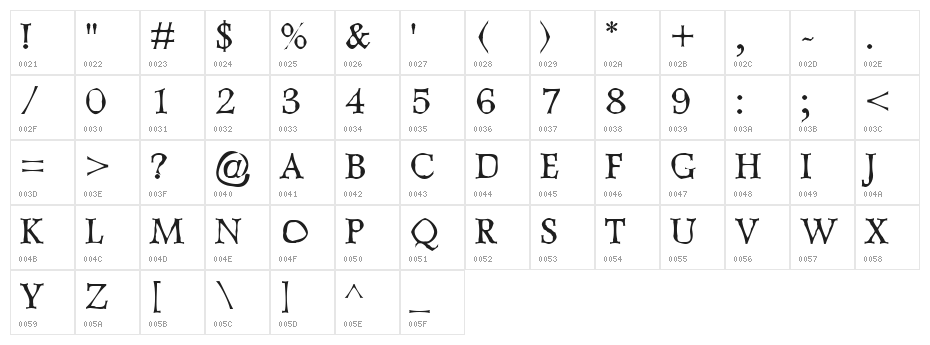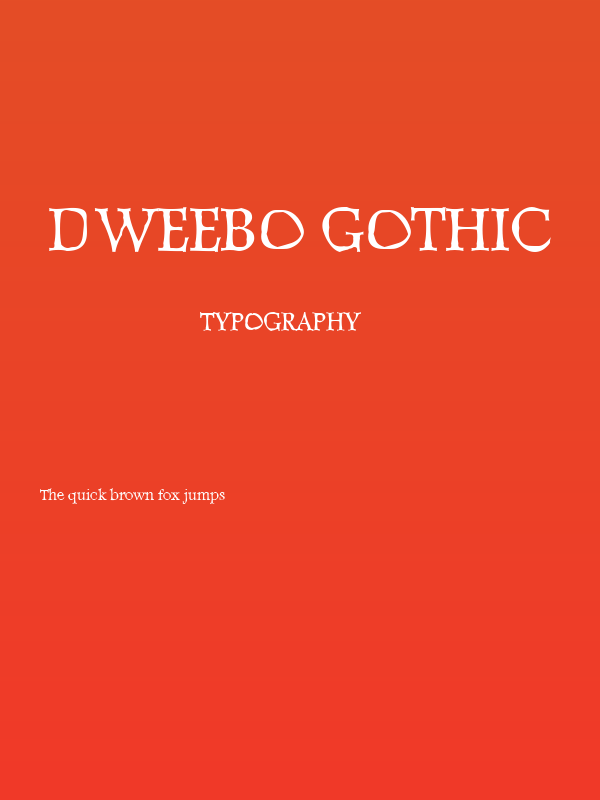
Dweebo Gothic Font
Dweebo Gothic Description
This font features a distinctive, hand-drawn style with a gothic influence, characterized by its uneven strokes and slightly irregular shapes. The uppercase letters exhibit a bold presence with sharp serifs and a somewhat medieval flair. Lowercase letters maintain the same stylistic elements, offering a cohesive look across different cases. Numbers are consistent with the overall aesthetic, presenting a unique and artistic appearance. Special characters are creatively designed, adding to the font's decorative nature. The font's overall look is both artistic and slightly whimsical, making it suitable for projects that require a touch of personality and flair.
Proposed ProjectsIdeal for creative projects such as posters, album covers, fantasy-themed designs, and artistic branding.